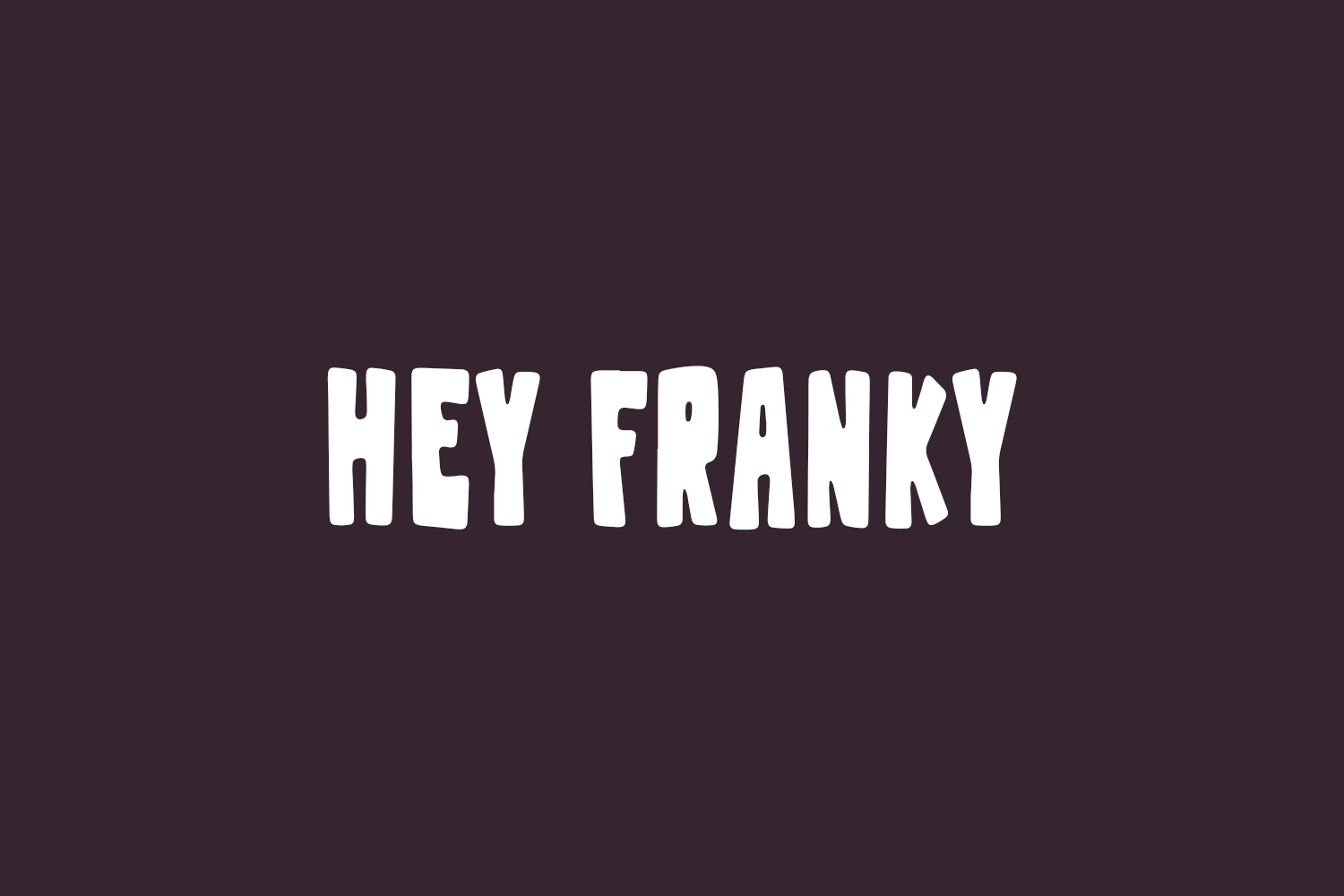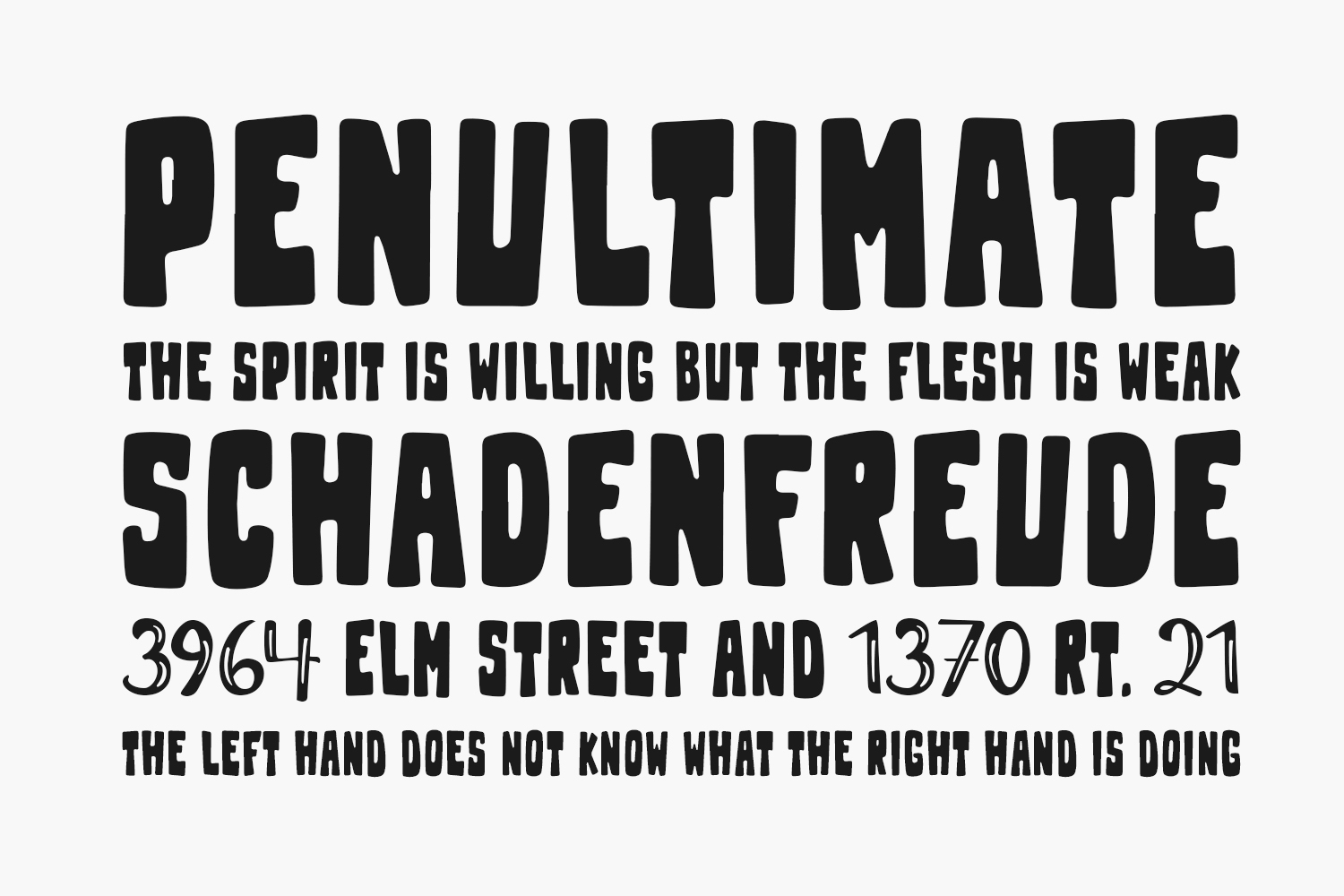
Hey Franky Free Font is a bold and outline lettered display font. This font will easily add a fun touch to any craft that you wish to develop. Hey Franky Free Font was designed by Kotak Kuning Studio is a demo and free for personal use only. Please purchase the full version for commercial use.